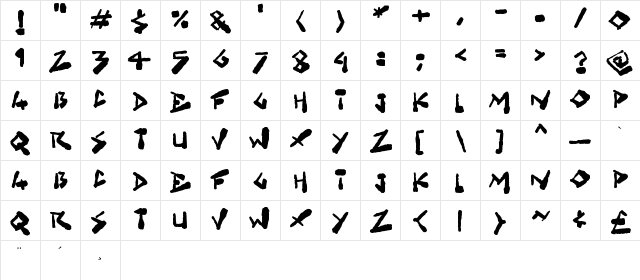
Grungelings Regular
Design Context for Grungelings Typeface
Grungelings trades polish for personality, using distressed and eroded forms to bring grit and attitude to creative work.
A strong fit for alternative music projects, graffiti-adjacent design, and anything that deliberately resists polish.
Pro Tip: Use Grungelings at larger sizes where the texture and irregularity of each letterform can be clearly seen — it loses its character at small sizes.